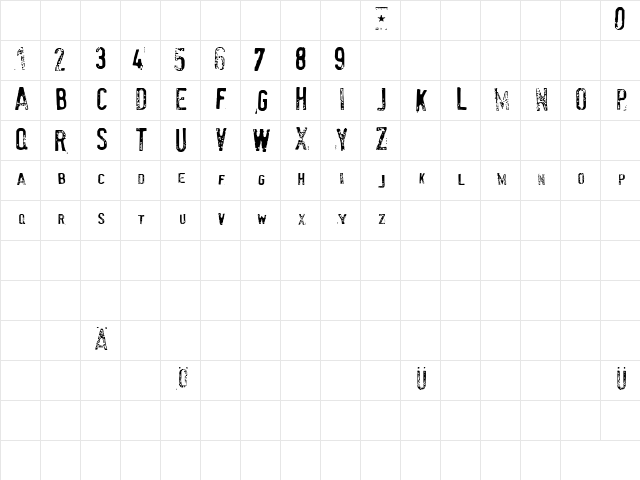
Testerus Regular
Design Context for Testerus Typeface
Testerus is a composed and adaptable typeface that performs quietly and consistently across a wide range of design contexts.